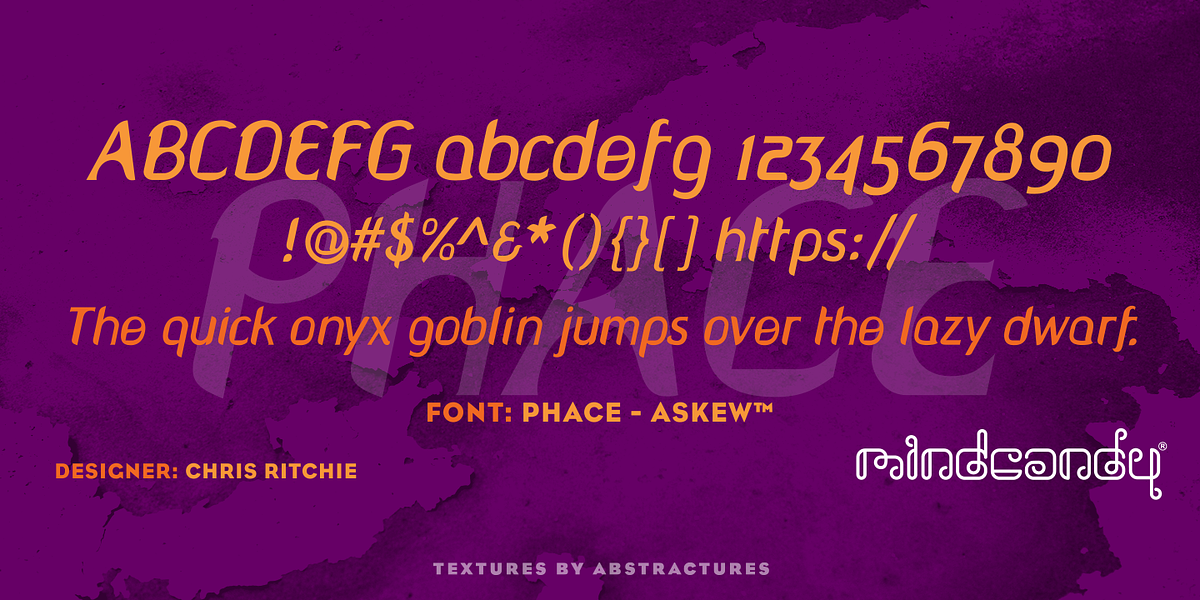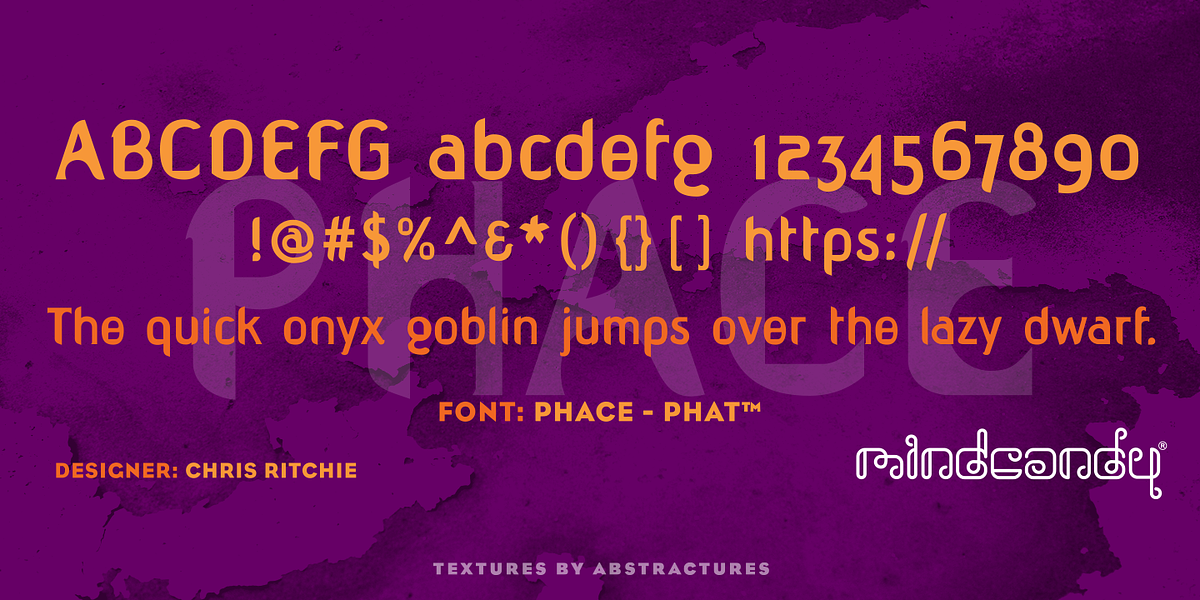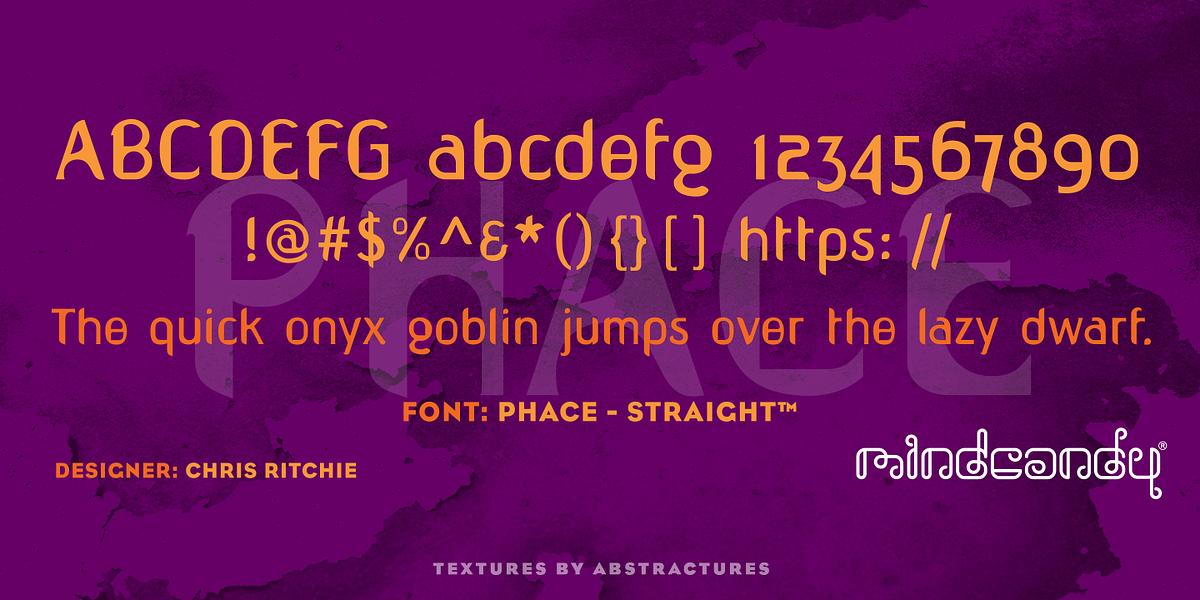
Phace™
This display font is designed by Chris Ritchie and distributed by Mindcandy® on Fontspring.com. It's characterized as a novelty sans serif, suggesting a playful and distinctive style suitable for headlines, branding, and other display uses.